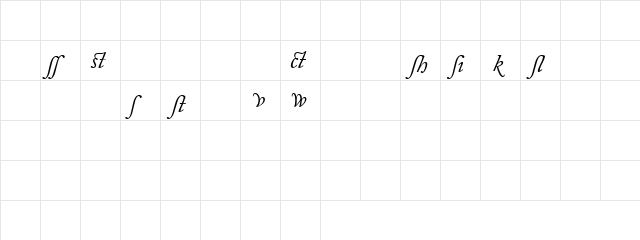
CaslonAlternateSSK Italic
Design Context for CaslonAlternateSSK Typeface
CaslonAlternateSSK takes a measured approach to typography — its balanced proportions and neutral character make it a reliable workhorse for both digital and print work. The dynamic lean of this cut emphasises speed and emphasis in any layout.